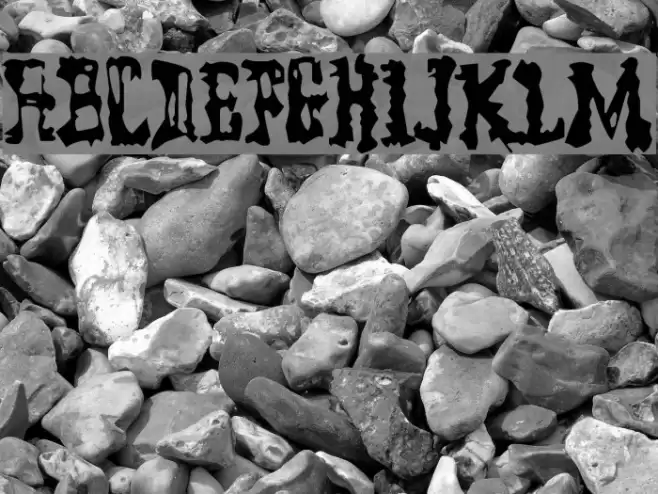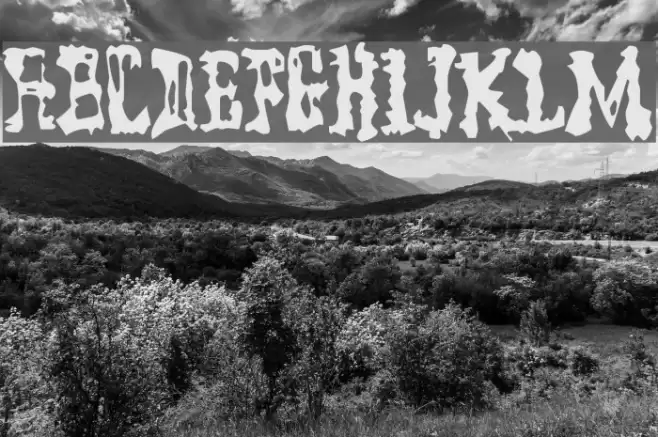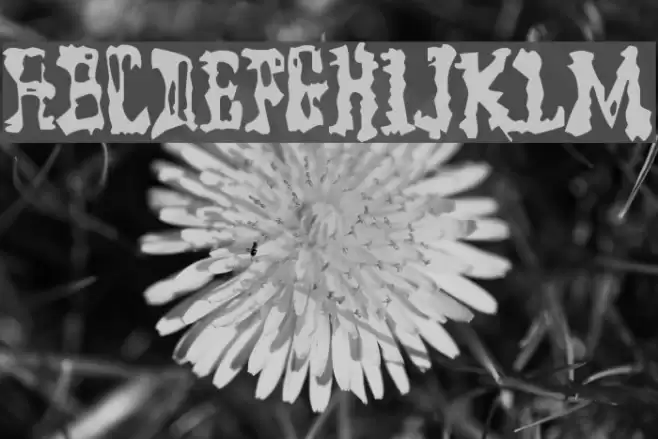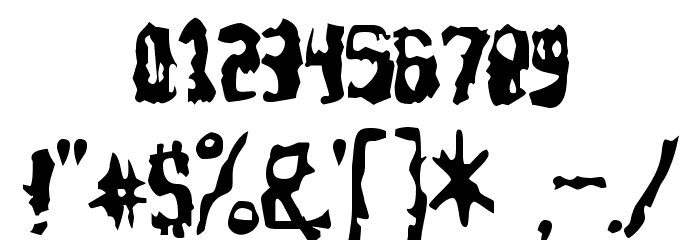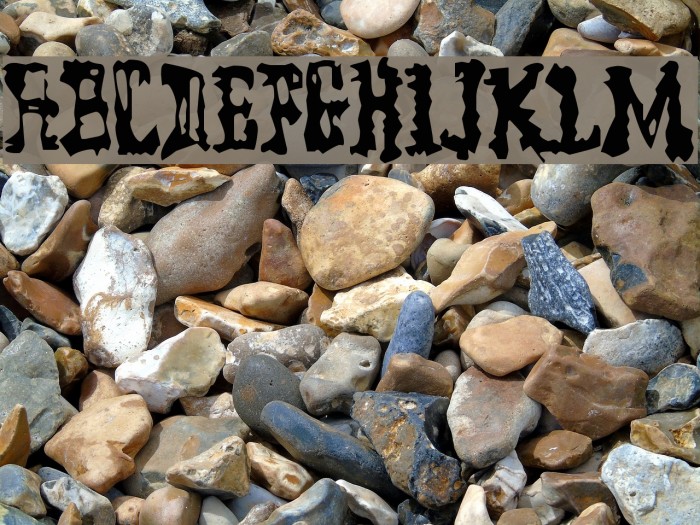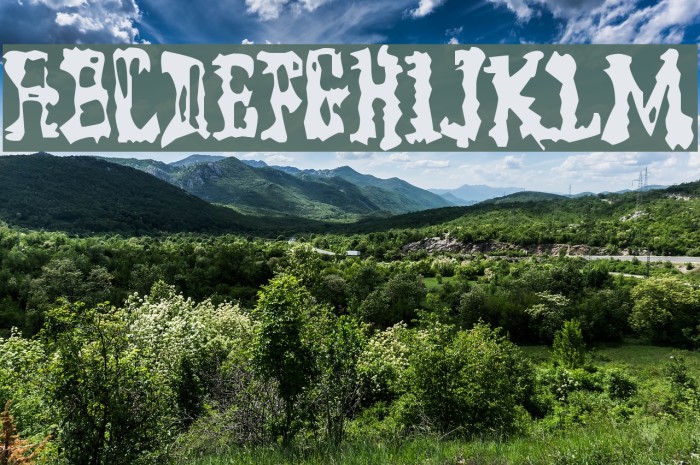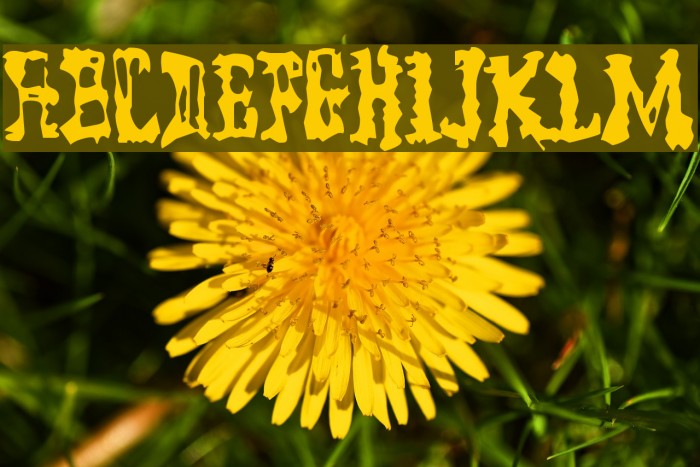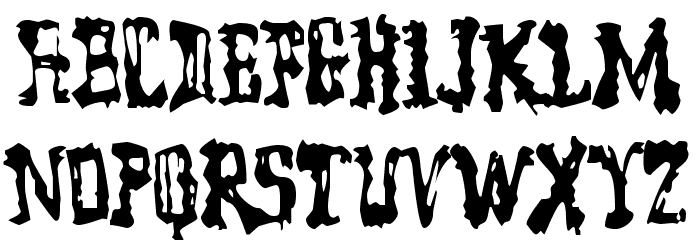
Model Worker Font
Model Worker Description
This font features a highly decorative and distressed style, reminiscent of horror or Halloween themes. The characters appear as if they are melting or dripping, giving them a unique and eerie appearance. The uppercase and lowercase letters maintain a consistent design, with jagged edges and irregular shapes that contribute to its unsettling aesthetic. Numbers and special characters follow the same stylistic approach, ensuring a cohesive look across all elements. This font is ideal for creating eye-catching headlines or themed designs that require a bold and dramatic impact.
A decorative, horror-themed font with a dripping, distressed style from Distorted Eroded fonts.
- Proposed Projects: Ideal for Halloween posters, horror movie titles, themed event invitations, and graphic design projects requiring a spooky or dramatic effect.